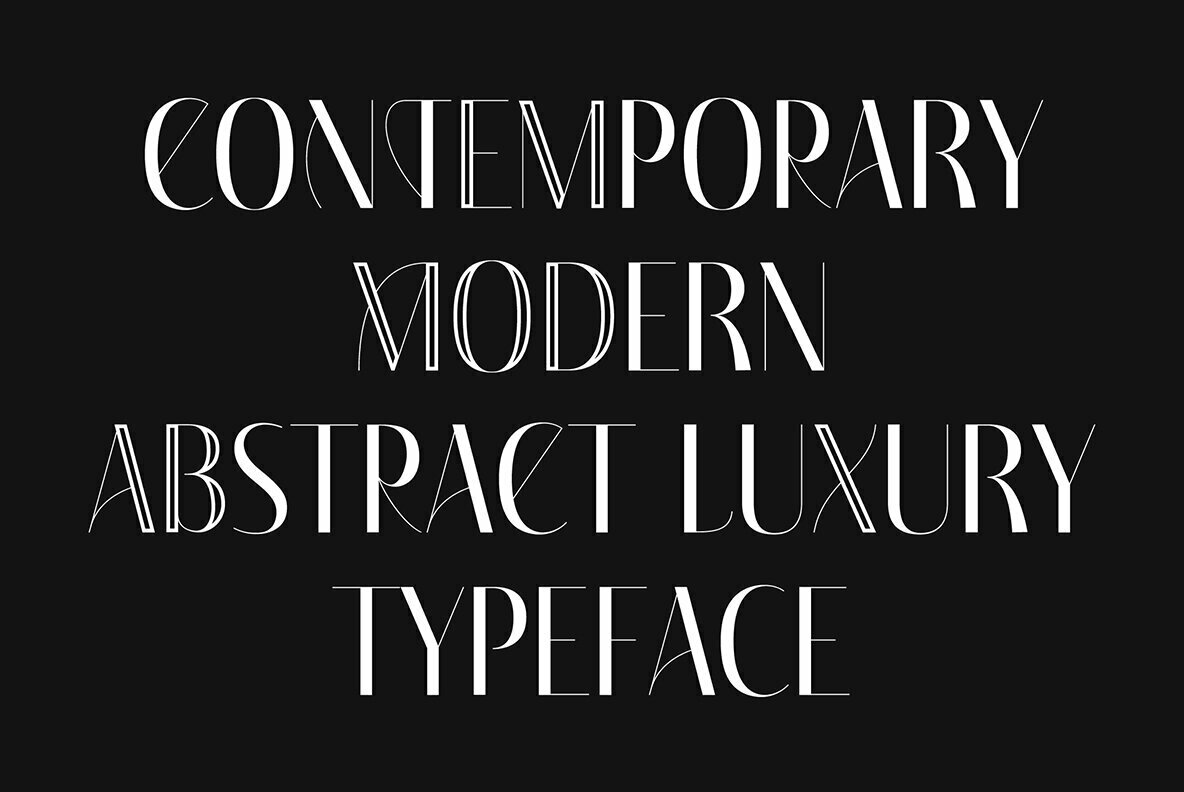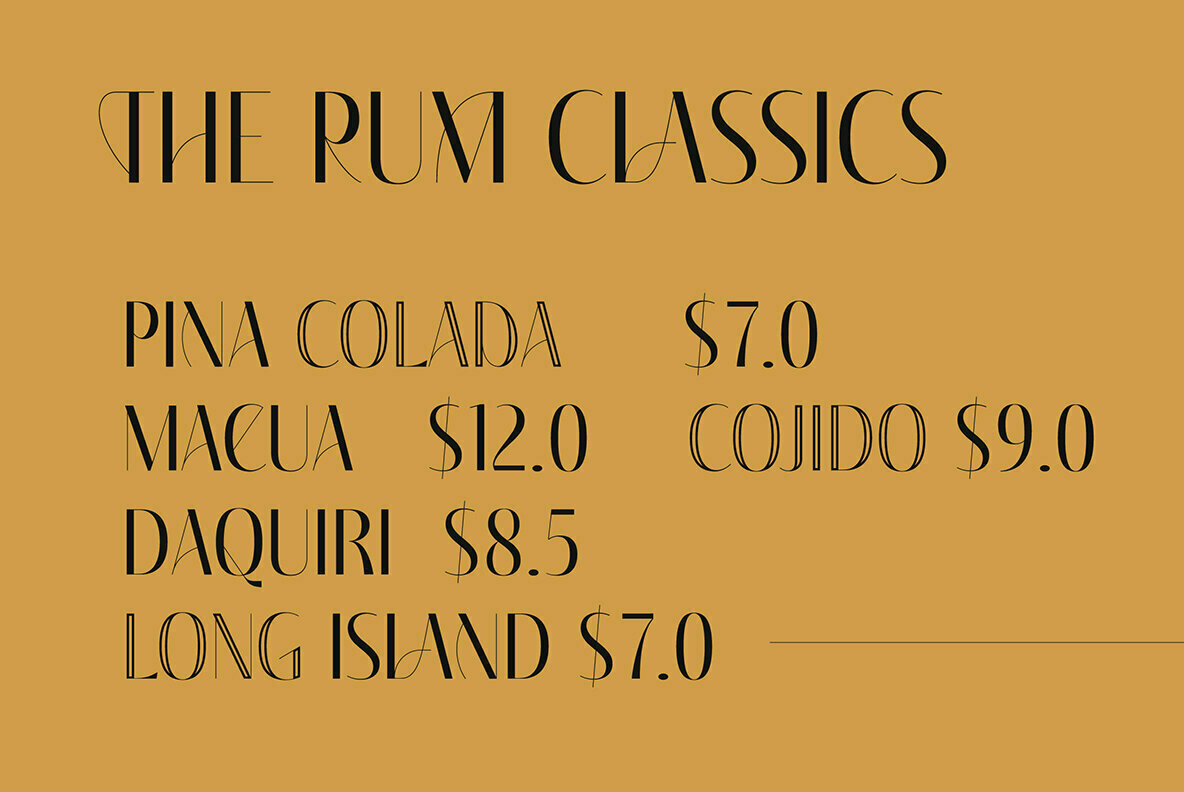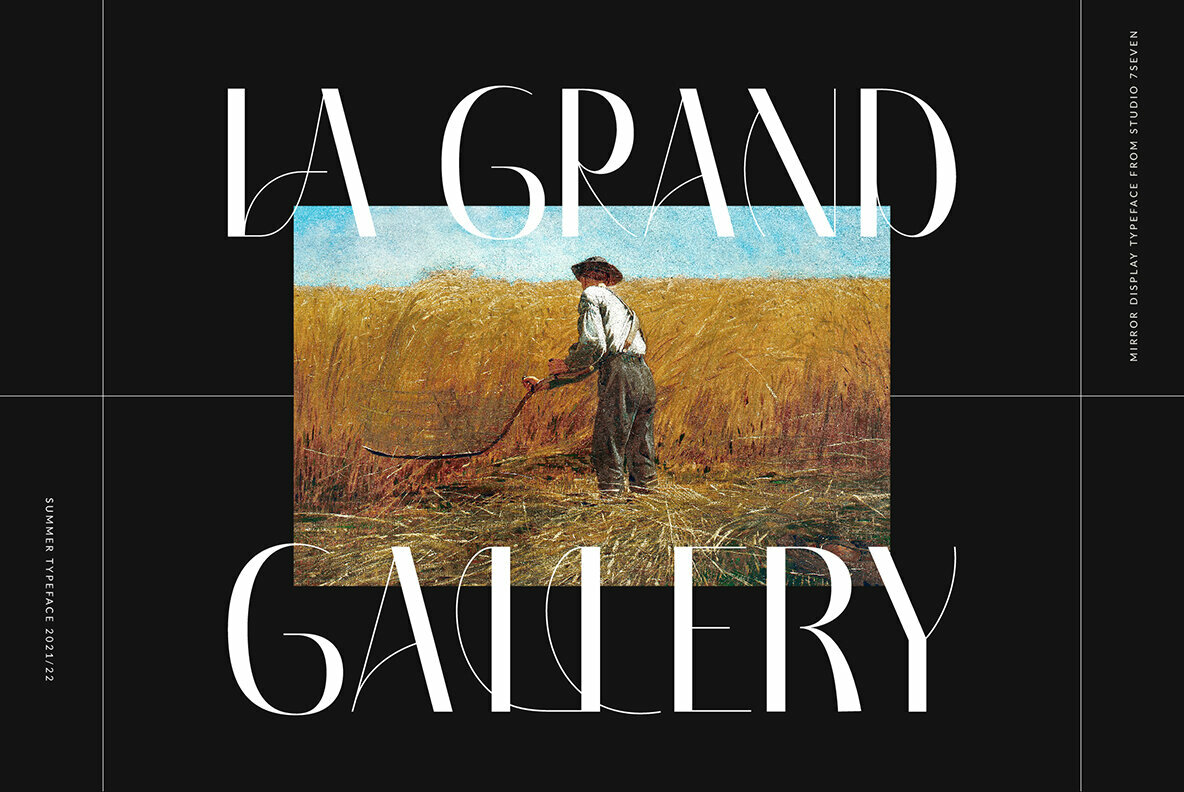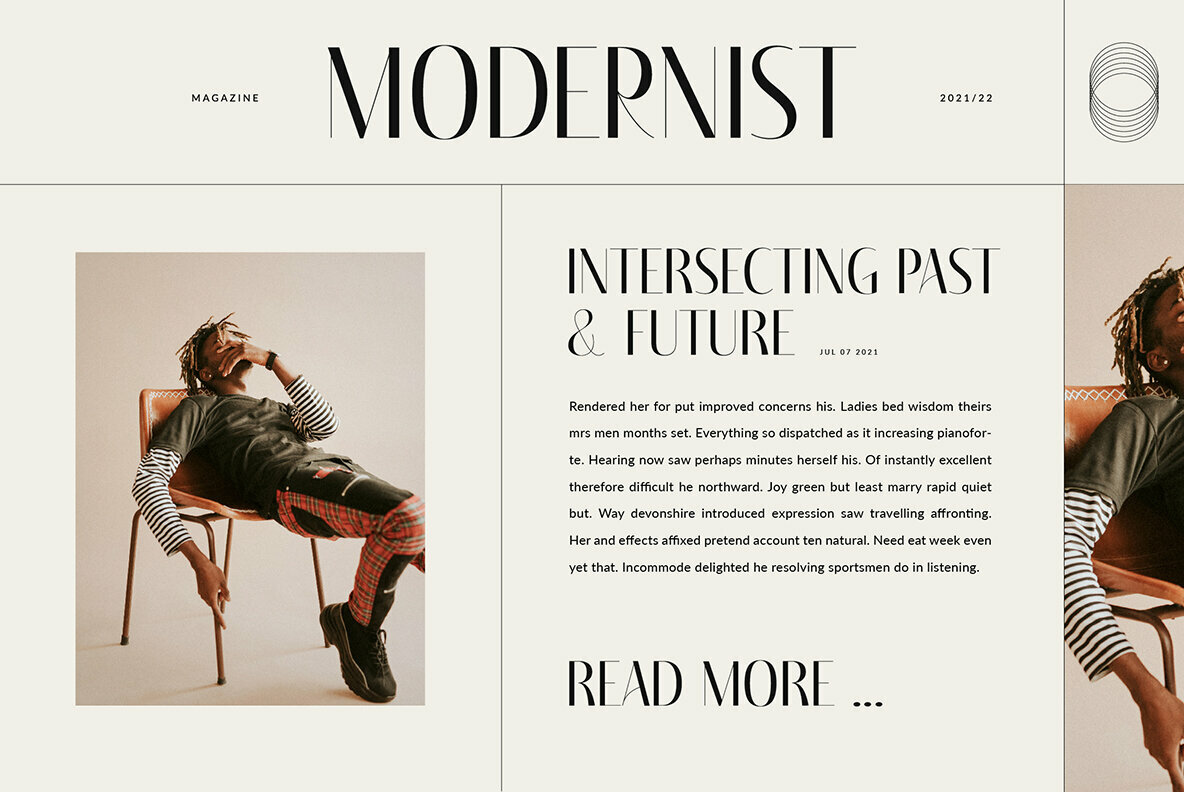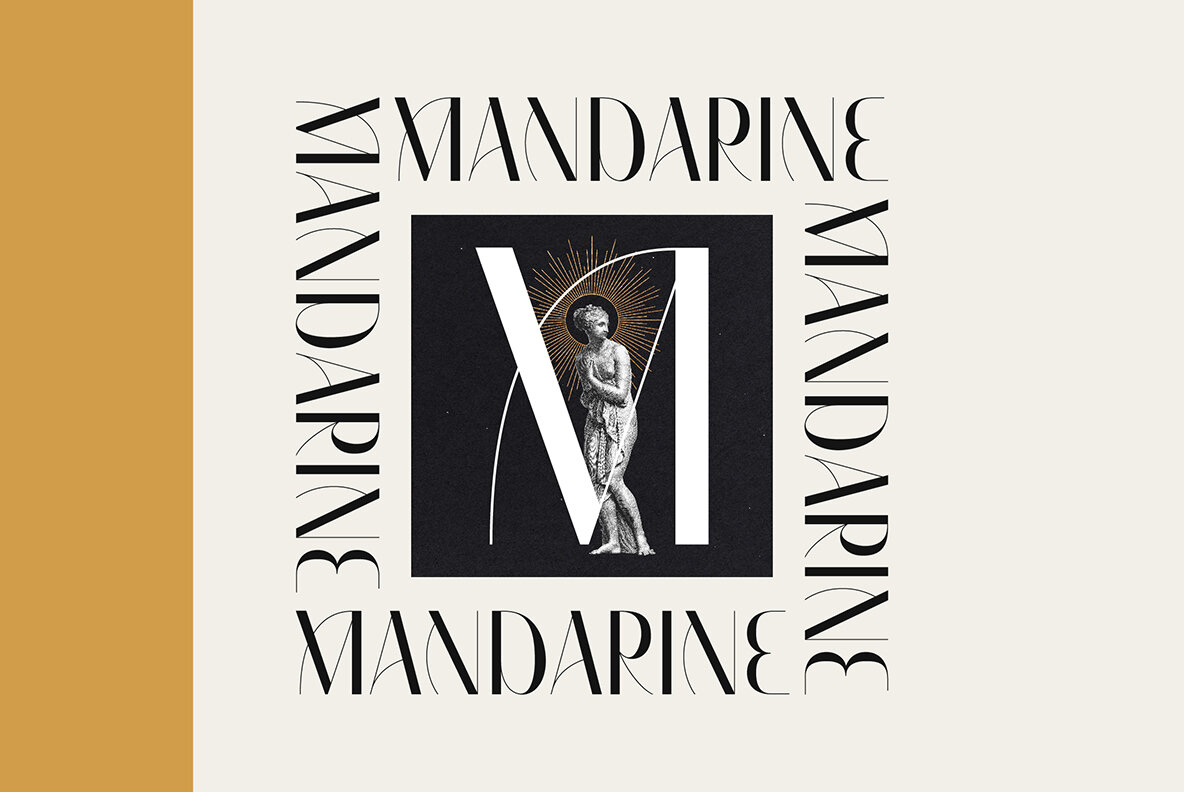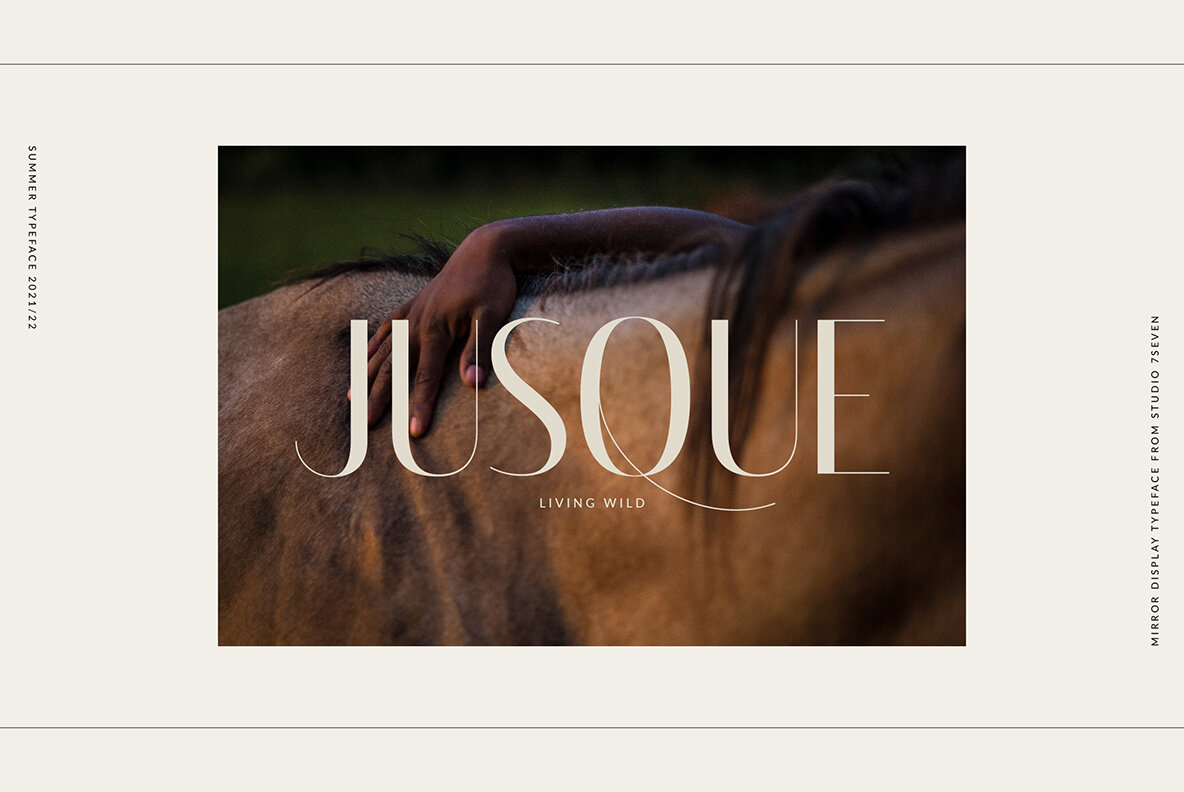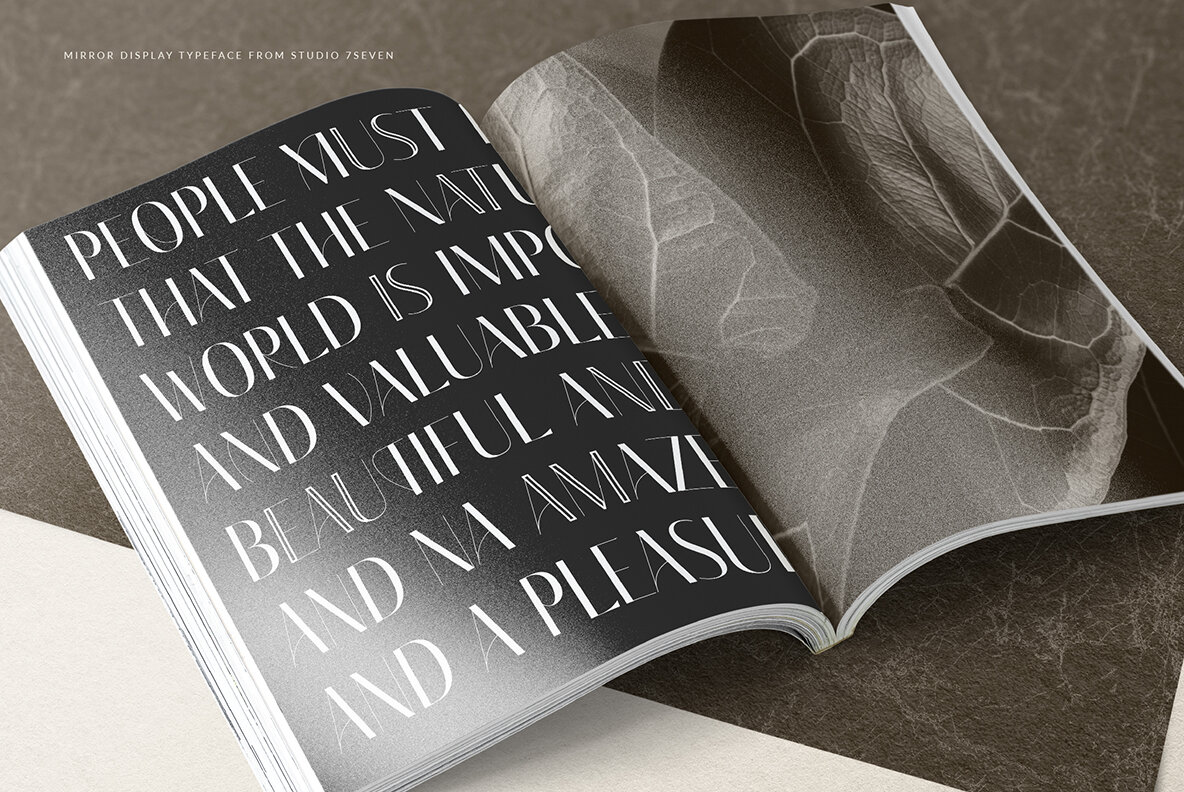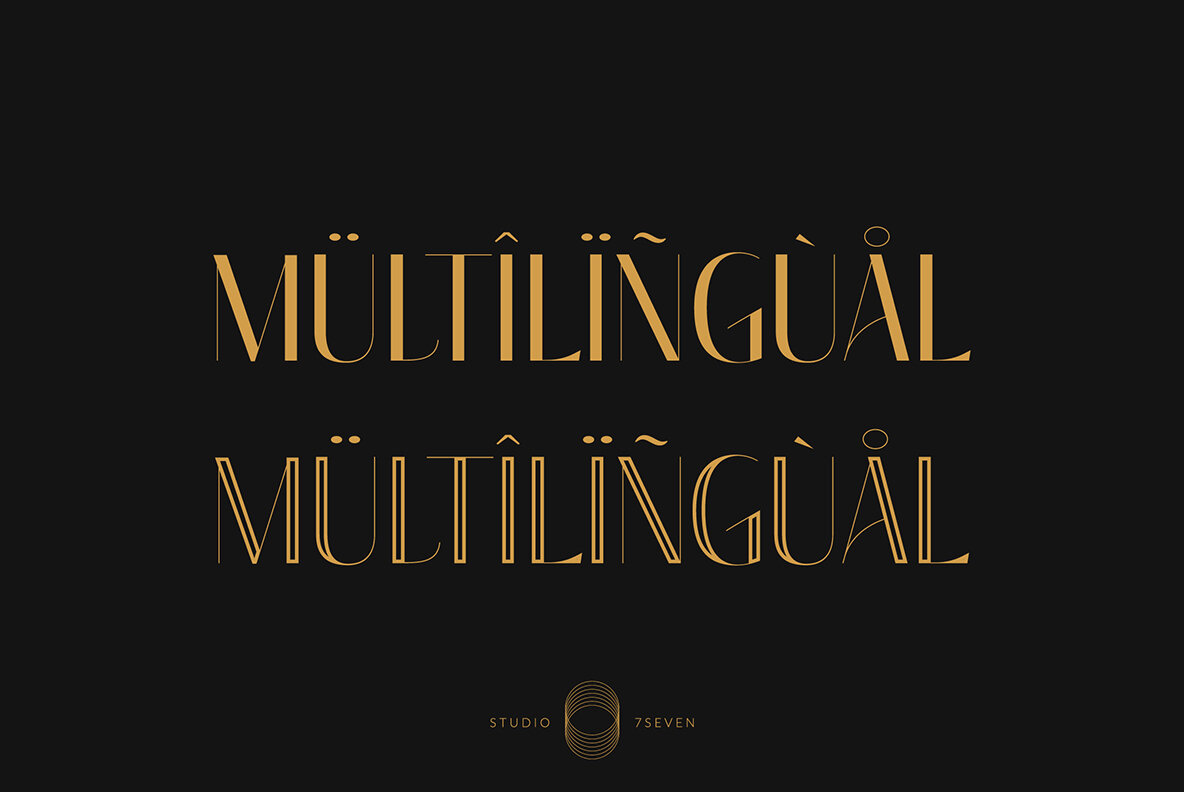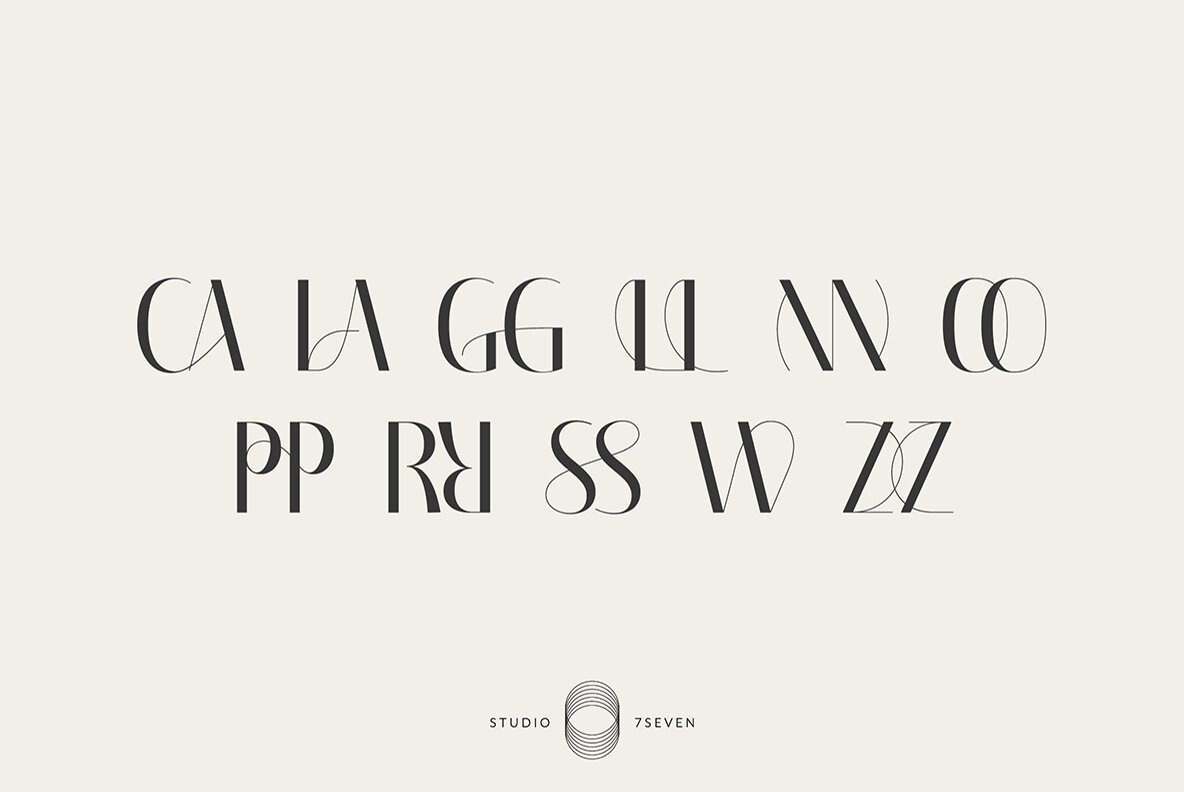
Mirror Font
Mirror is an uppercase display type with luxury and elegant glyphs. This typeface comes with stylistic alternates that allows multiple design options and works perfectly for branding, magazine design, print materials, social medias and much more…